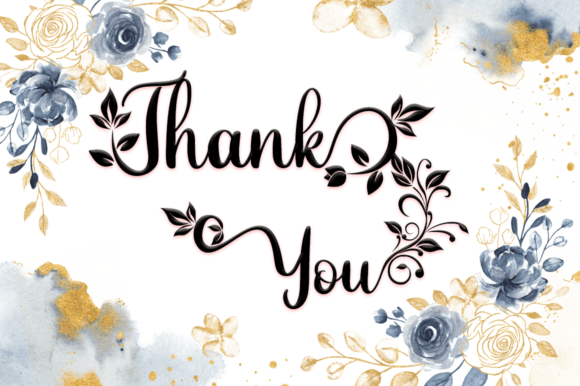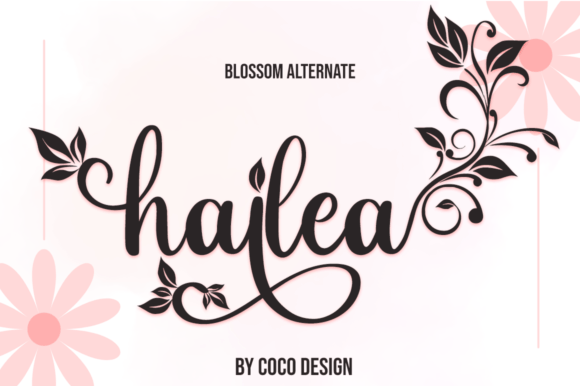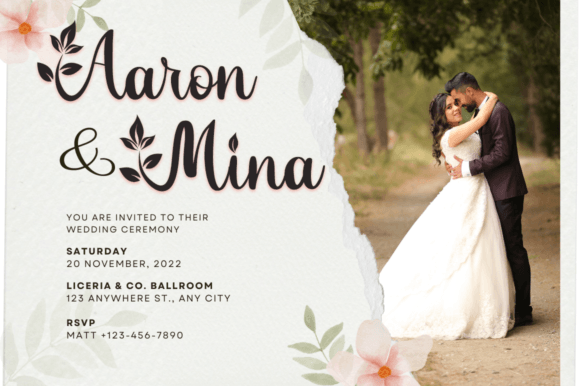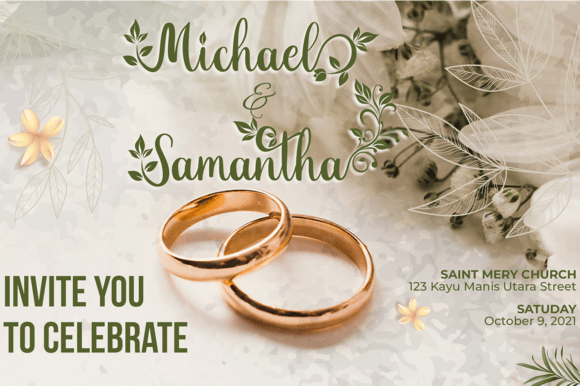
Flourish is a magical script font carefully created with a touch of elegance. Whether you’re looking for fonts for Instagram or calligraphy scripts for DIY projects, this font will turn any creative idea into a true piece of art! This font is PUA encoded which means you can access all the glyphs and ligatures with ease!